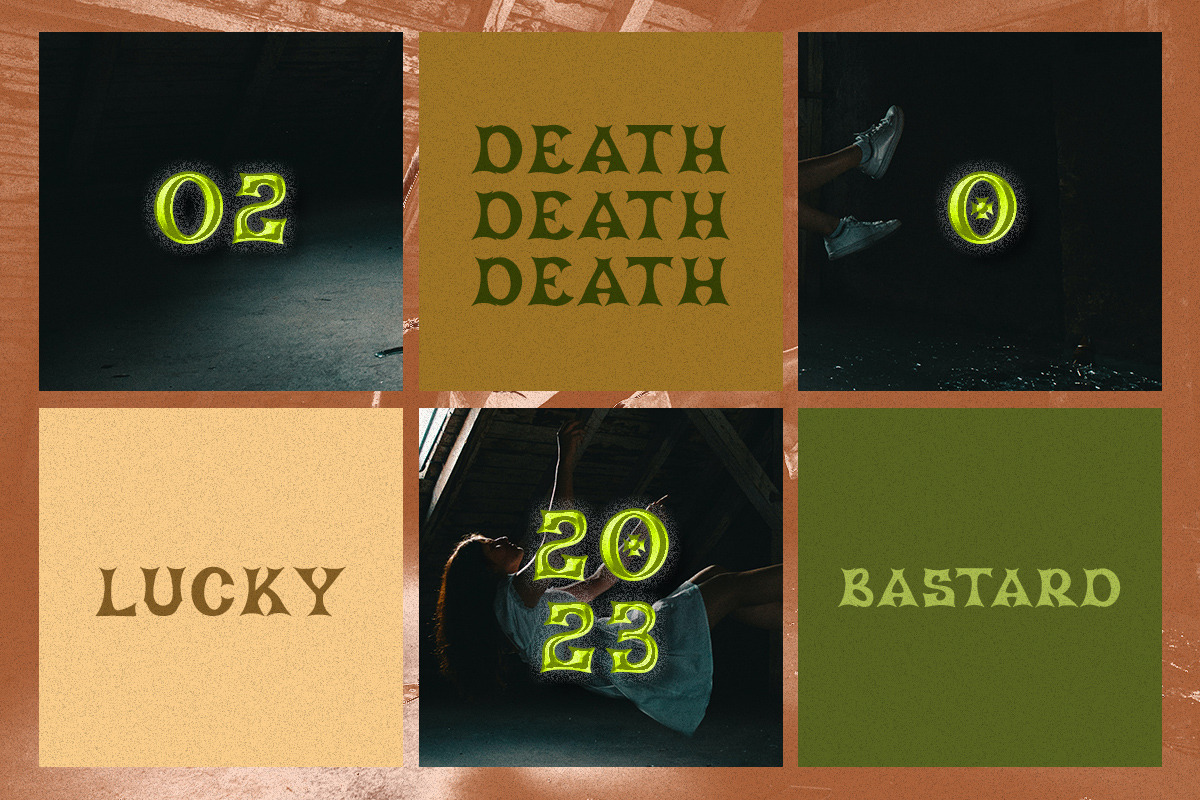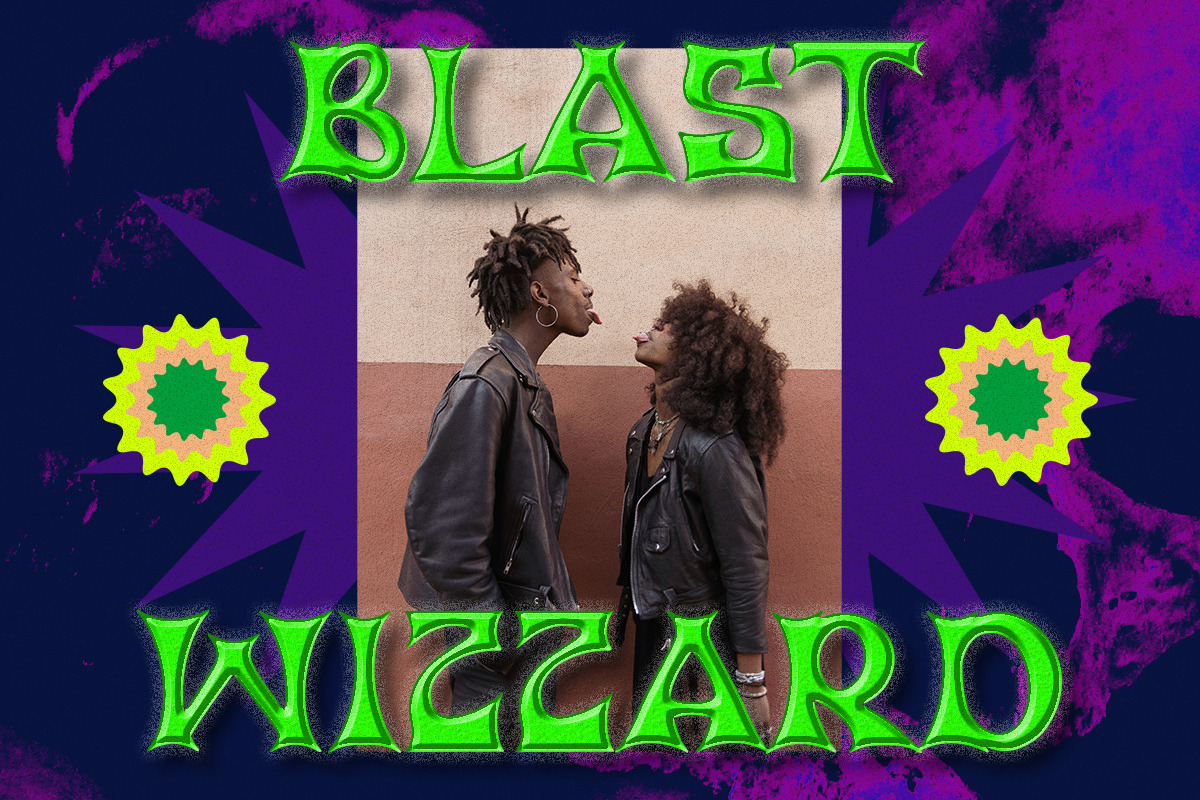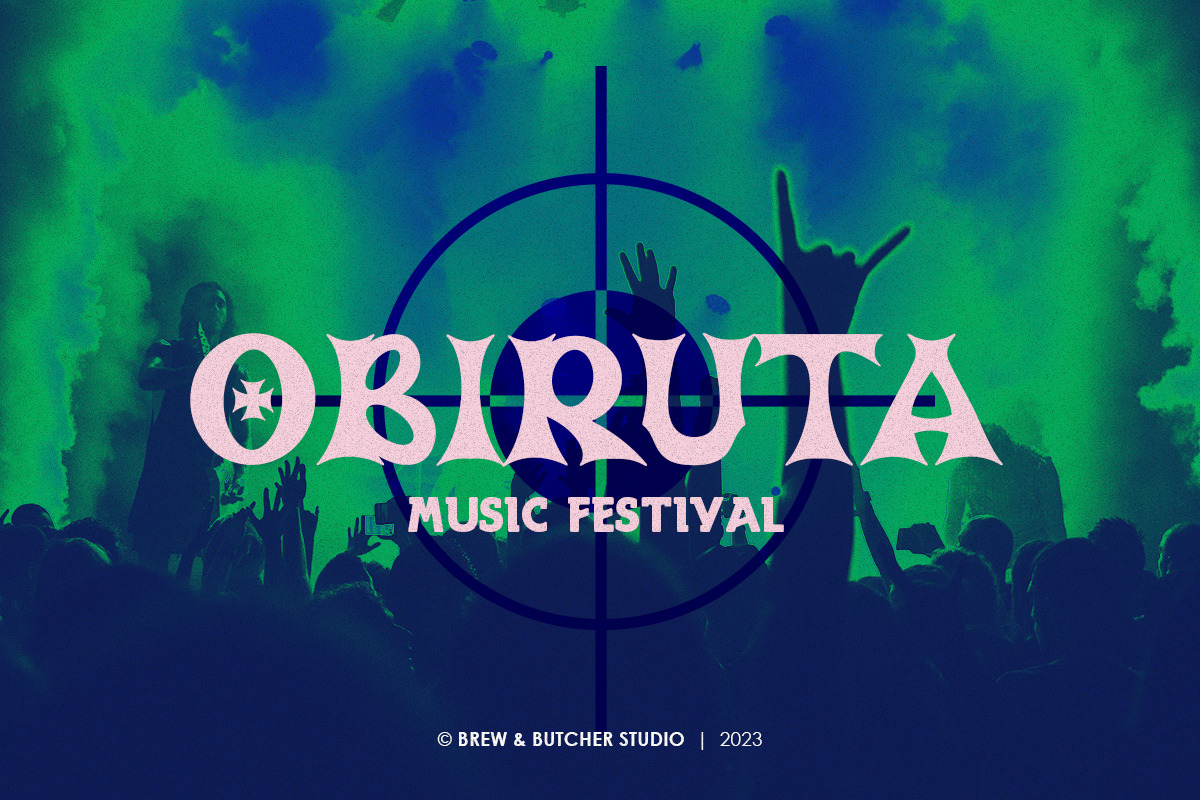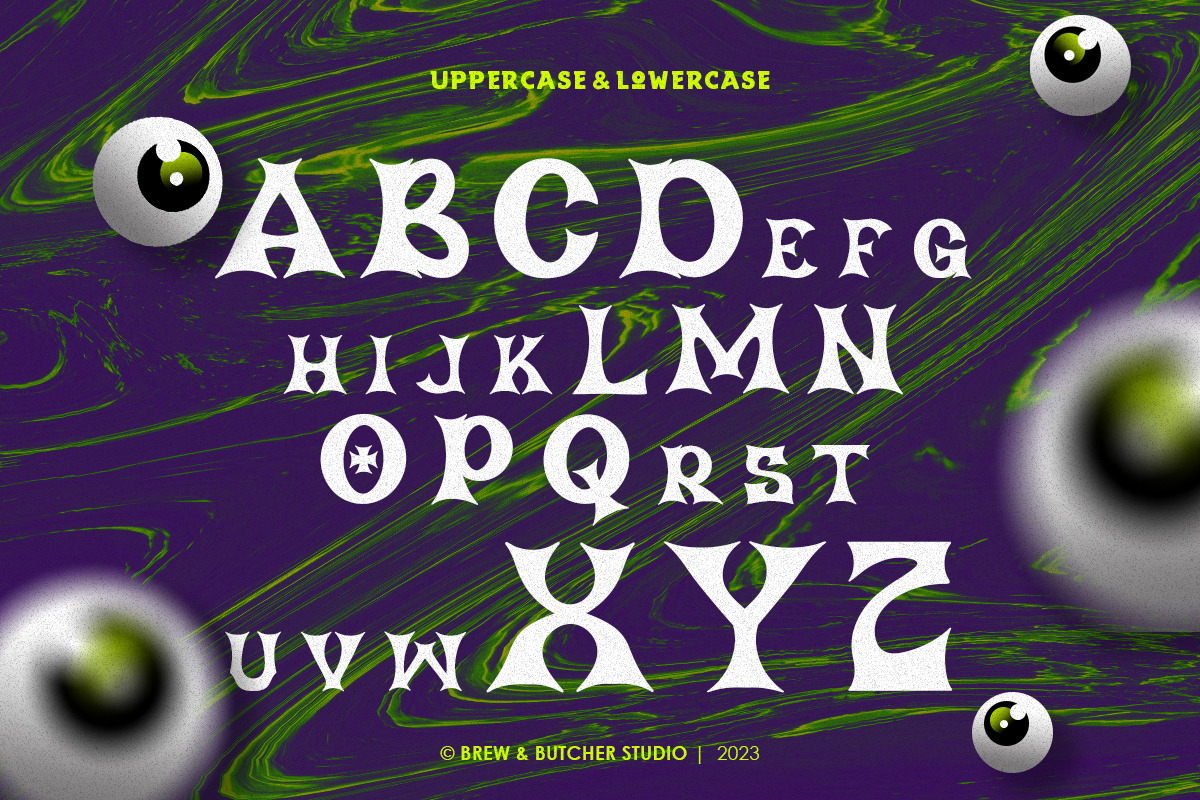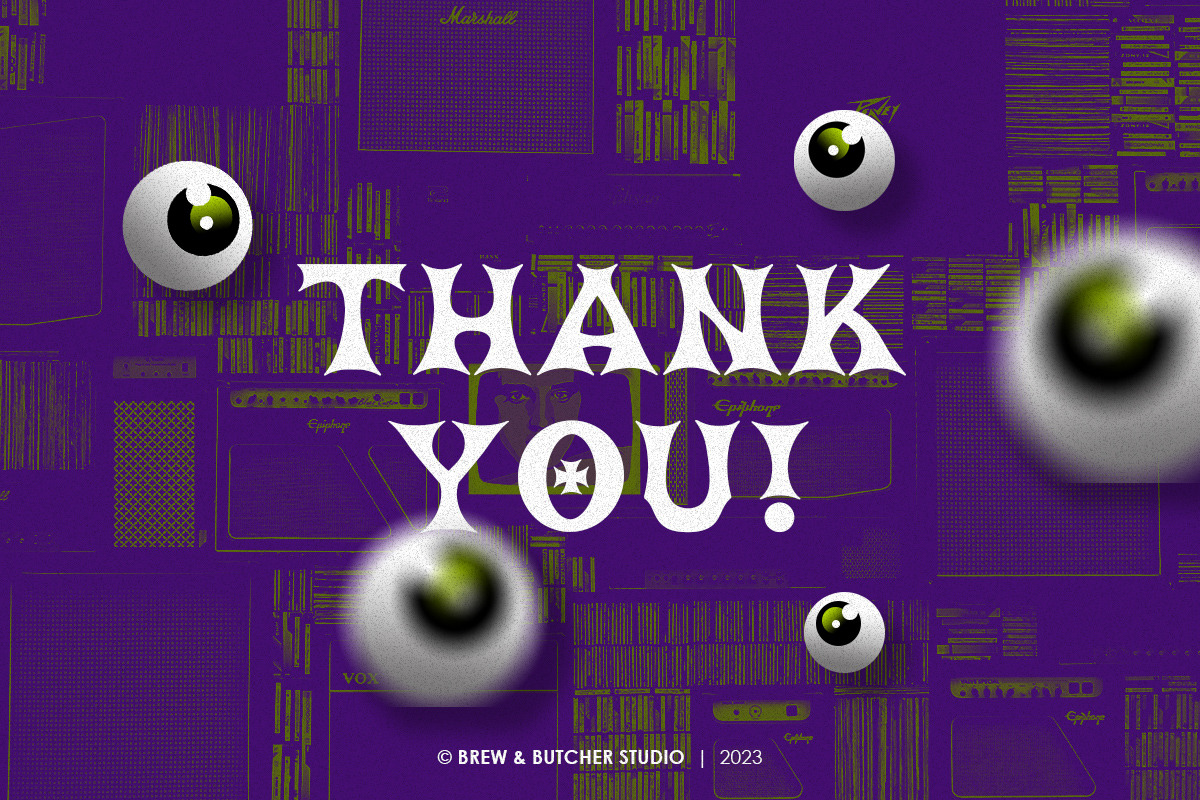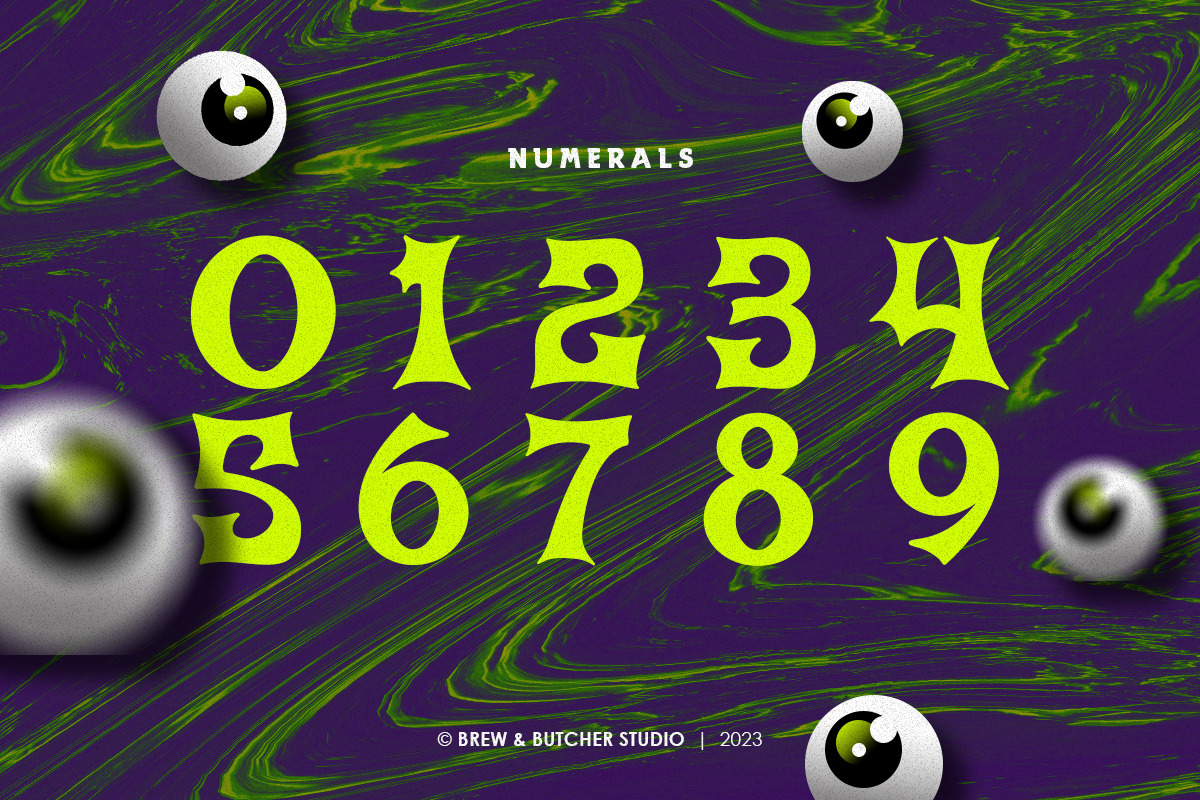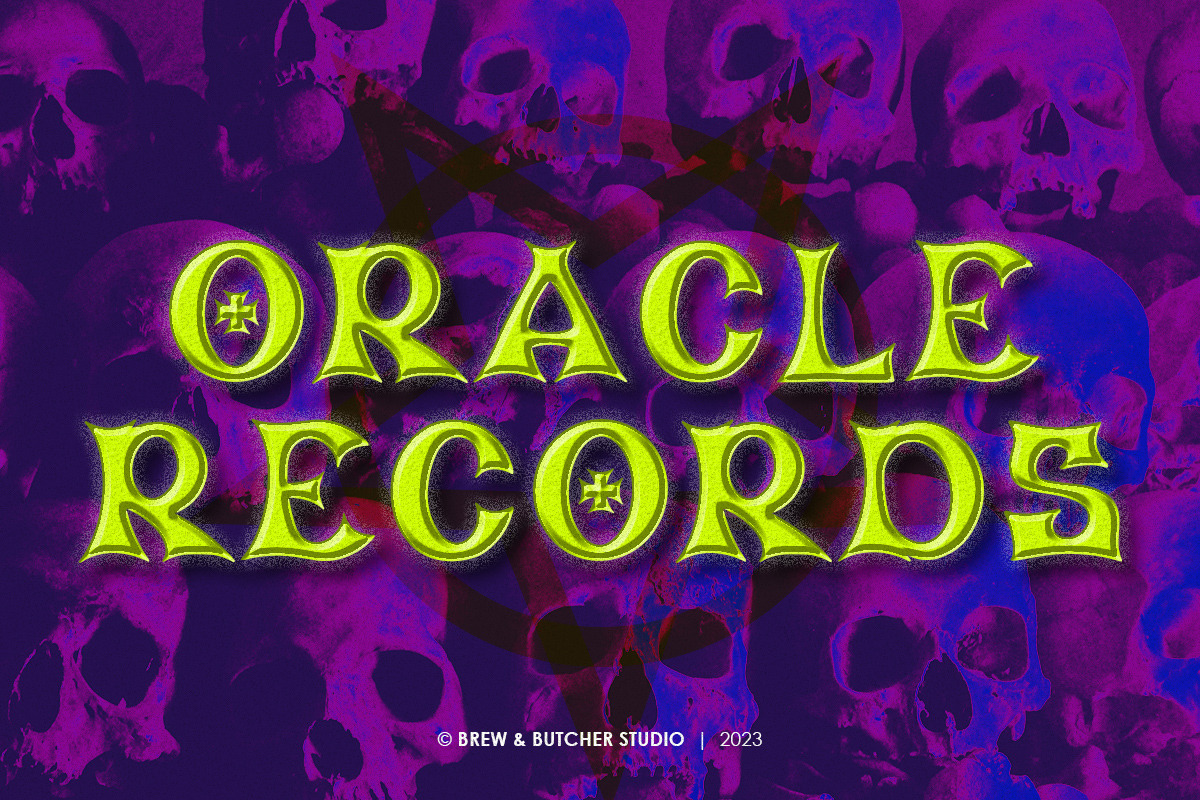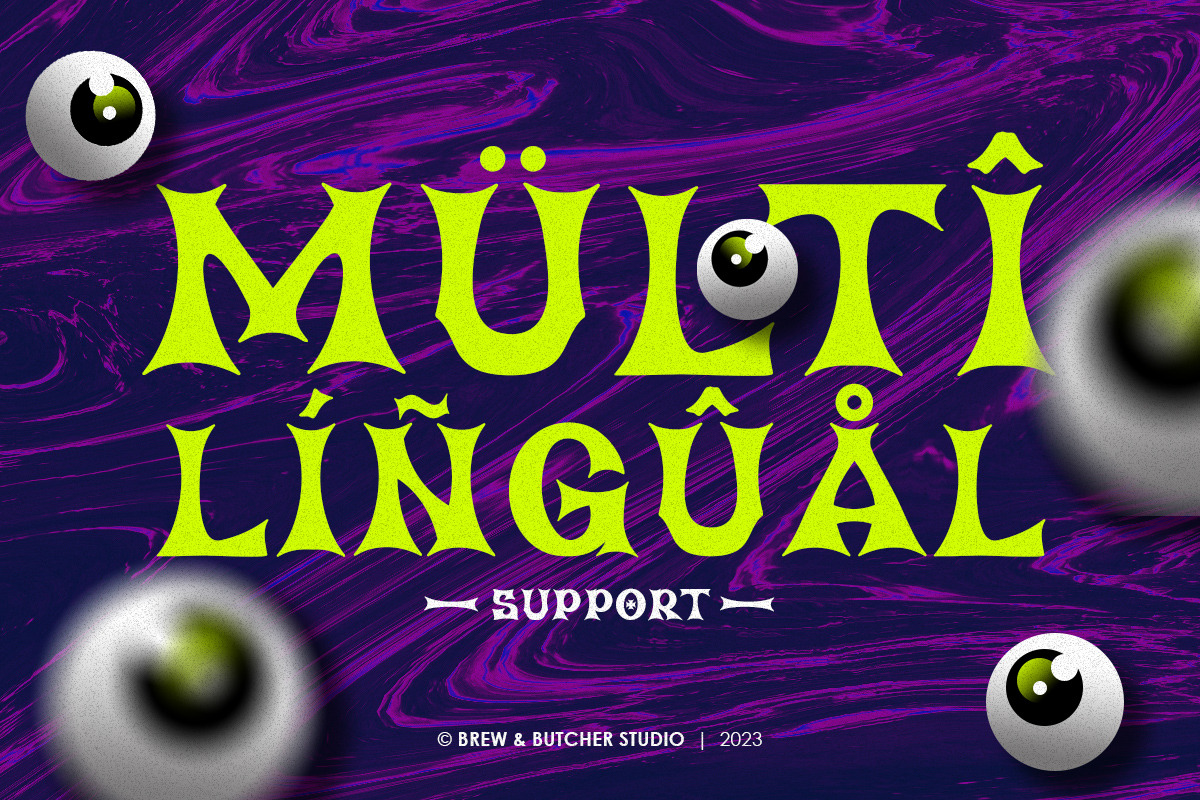
Mordant | Display Typeface
Mordant is a font with a sharp angular style, reflecting fierce, violent and wild. Inspired by the sharpness of a weapon that provides sharp and firm angles, with consistent curves that make it one unit. This font is best to use for header or headline, poster, flyer, banner, landingpage, portfolio, name write, album covers, and etc.